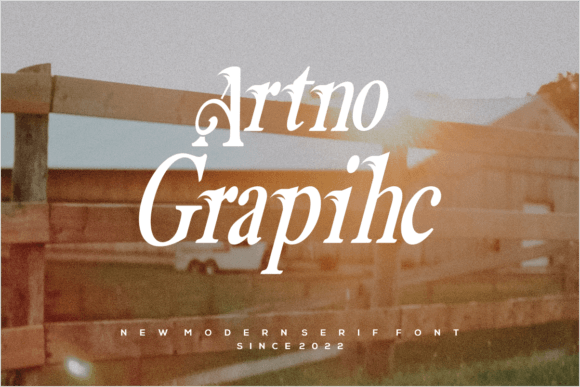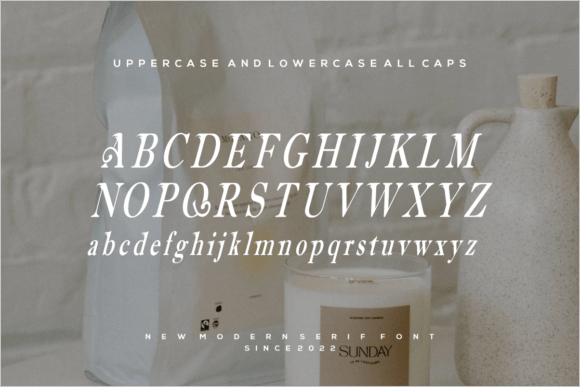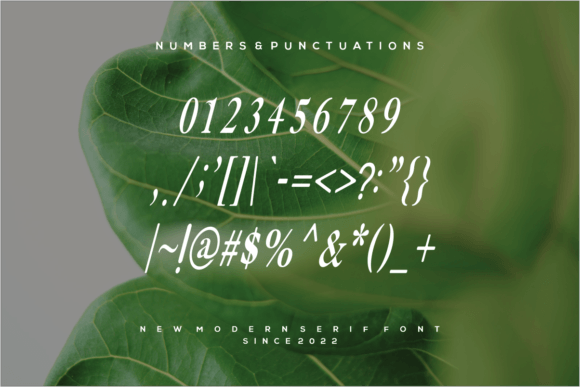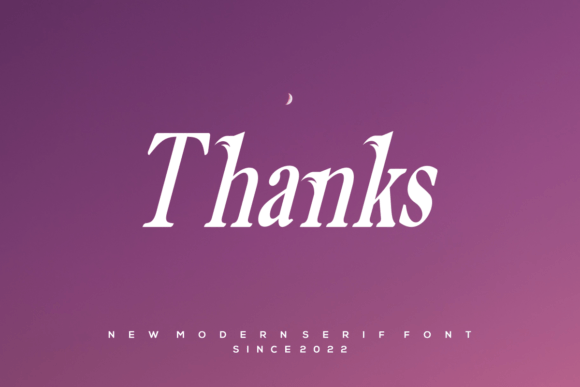
Introduction to Qurpaartno Font
As you sit at your desk, staring at a blank canvas, the creative wheels start turning. You envision the perfect font to elevate your project, something that exudes elegance and sophistication. And then, it hits you – the perfect font is just a click away. Welcome to the world of Qurpaartno Font, a sweet and elegant serif font that will transport your design to new heights.
Whether you’re a seasoned designer or just starting out, Qurpaartno Font is the ultimate design resource. With its classy calligraphic influence and contemporary feel, it’s the perfect addition to any creative project. And the best part? You can download it for free, complete with a transparent background, making it easy to integrate into your design.
Key Features of Qurpaartno Font
- High-quality, unique design ideal for creative projects and design resources
- Supports a range of languages, making it a versatile design resource
- Includes a wide range of characters, including Latin, Cyrillic, and Greek alphabets
- Unique, hand-drawn design style sets it apart from other fonts
Honest Review: Qurpaartno Font
As a designer, I’m always on the lookout for high-quality fonts to enhance my creative projects. Recently, I stumbled upon the Qurpaartno Font, and I must say, it’s been a great addition to my design resource library. ✨
The Qurpaartno Font is available for free download, which is always a plus. However, what really caught my attention was its unique and elegant design. The font’s transparent background makes it perfect for overlaying on images or using as a standalone element in my designs.
Here are some pros and cons of the Qurpaartno Font:
- ✨ High-quality design that adds a touch of elegance to any project
- ✨ Transparent background allows for flexibility in design applications
- ⚠️ Limited character set, which may be a drawback for some users
- ⚠️ Not suitable for large-scale text or headings
Overall, I’m quite impressed with the Qurpaartno Font. Its unique design and versatility make it a valuable addition to any designer’s toolkit. However, its limitations should be considered before using it in a commercial project.
Tips for Getting the Most Out of Qurpaartno Font
To get the most out of Qurpaartno Font, experiment with different font sizes, colors, and styles. You can also use the font in combination with other design elements to create a cohesive and visually appealing design.
The Qurpaartno Font is suitable for a wide range of creative projects, including logos, brochures, business cards, and social media graphics. Its high-quality design and transparent background feature make it an ideal choice for designers and non-designers alike.